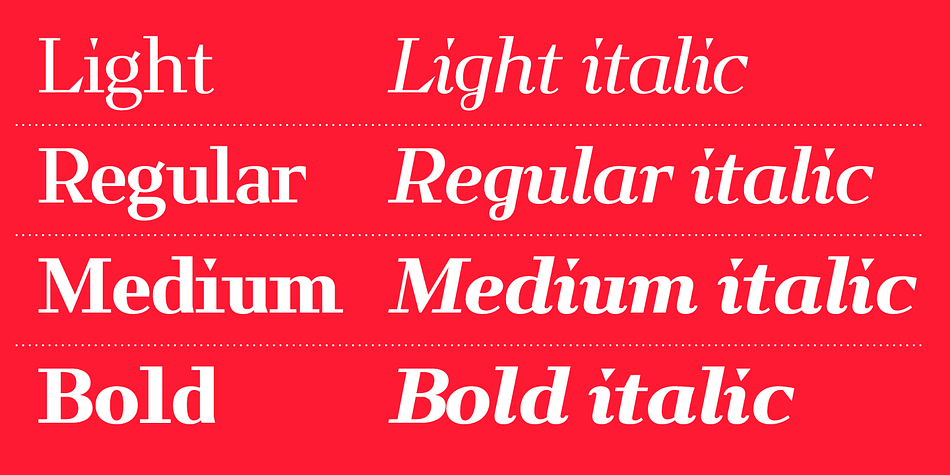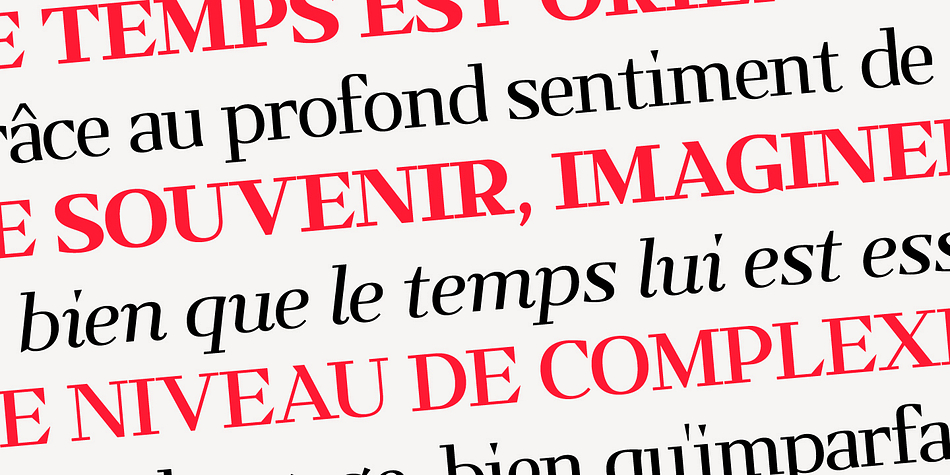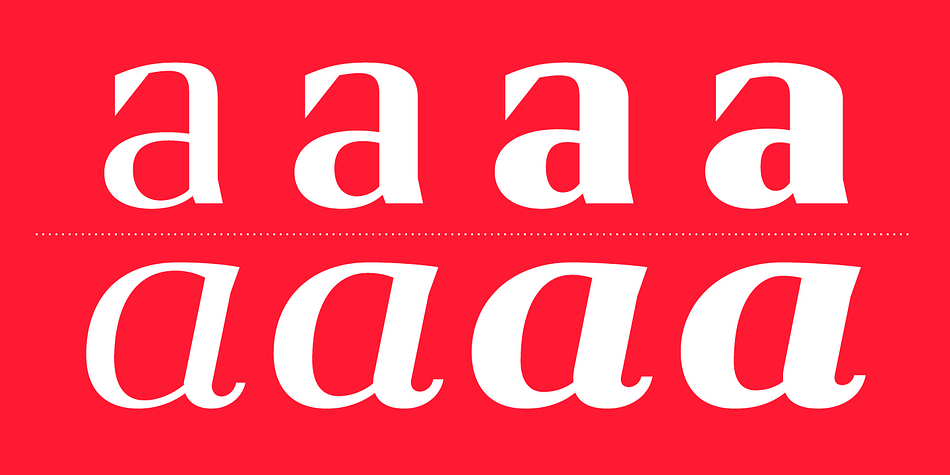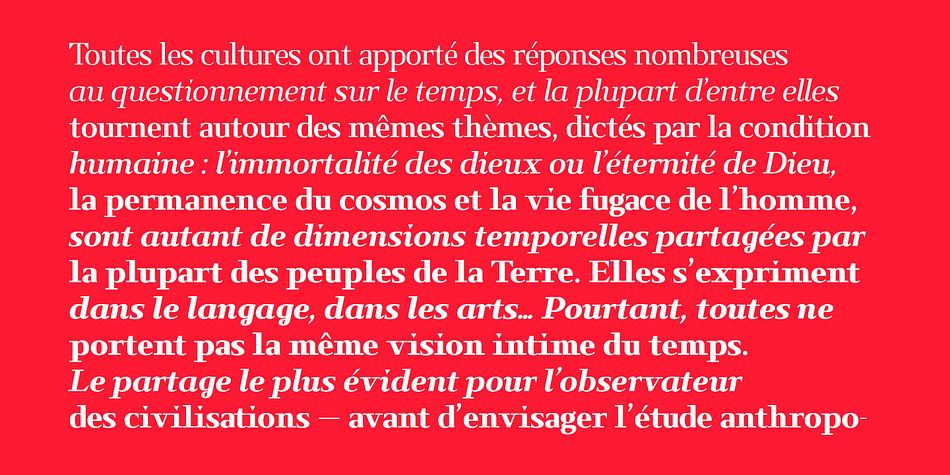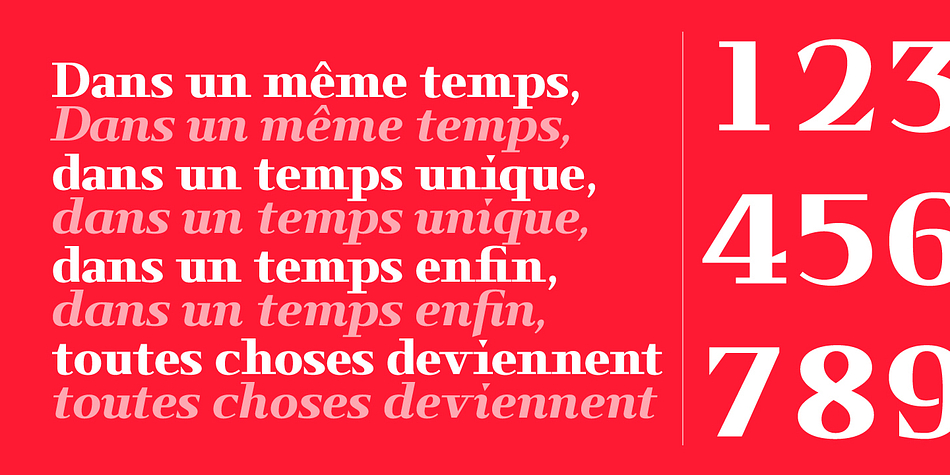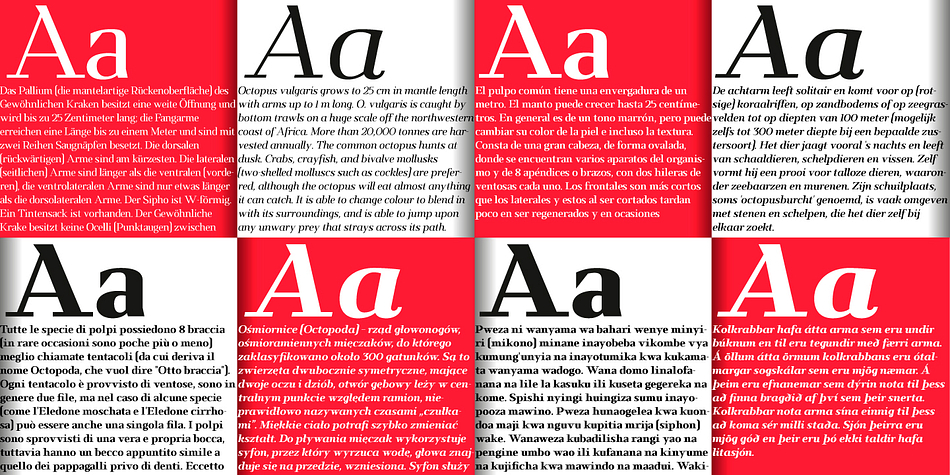
Kalpa is a display serif and serif font family. This typeface has eight styles and was published by Octotypo.
The early inspiration designs for Kalpa are from some old wrist watches dials from an iconic diving watch brand.
The result is a sharp and sleek design that gives an extremely strong look to the font.
The design comes with some alternatives design which enhanced the use of the font and let you customise your letter works.
Kalpa comes in 4 weights and italics to make it versatile and easy to use on all kinds of media.
It is a wise choice for headlines, logos, branding, packaging, publications and websites
The name comes from a Sanskrit word meaning a relatively long period of time to connect with its early inspirations of wrist watches dials.